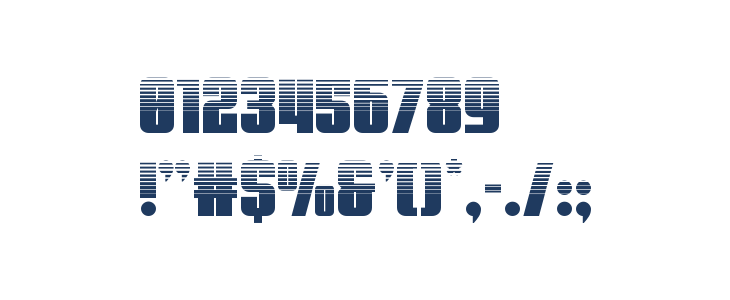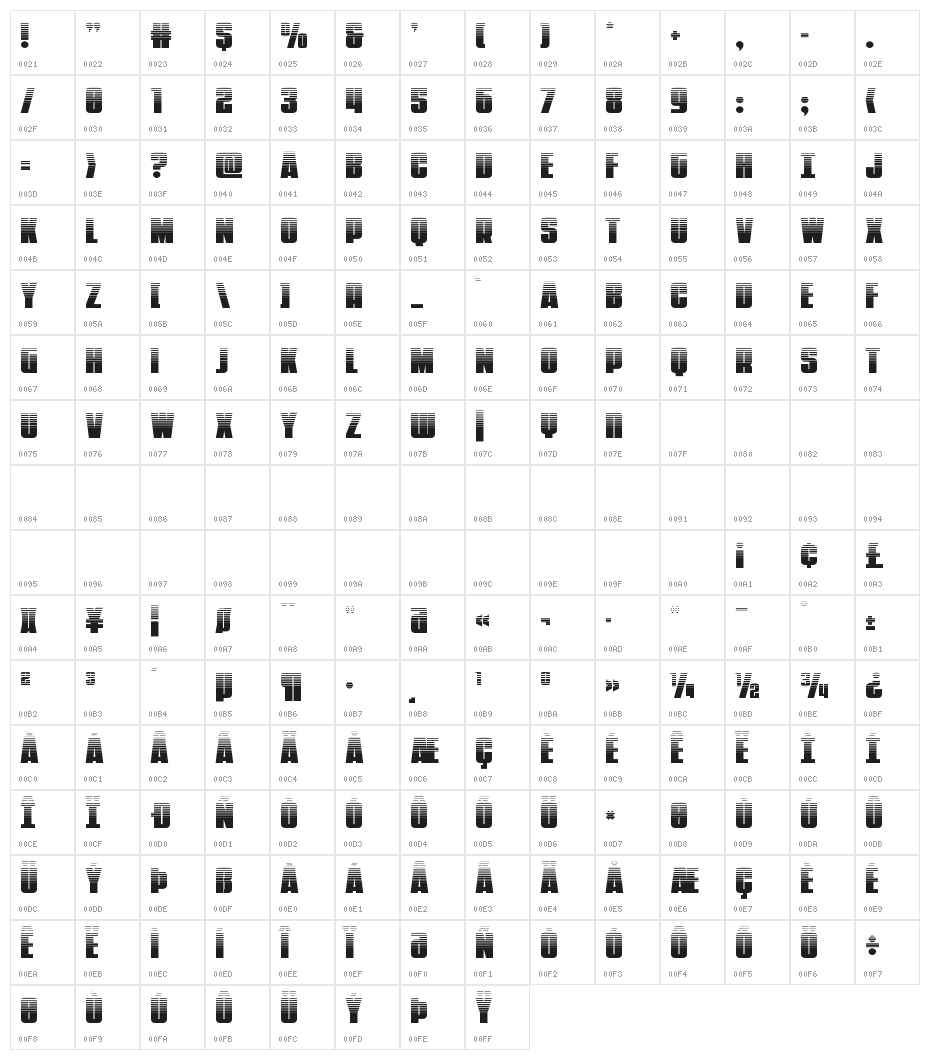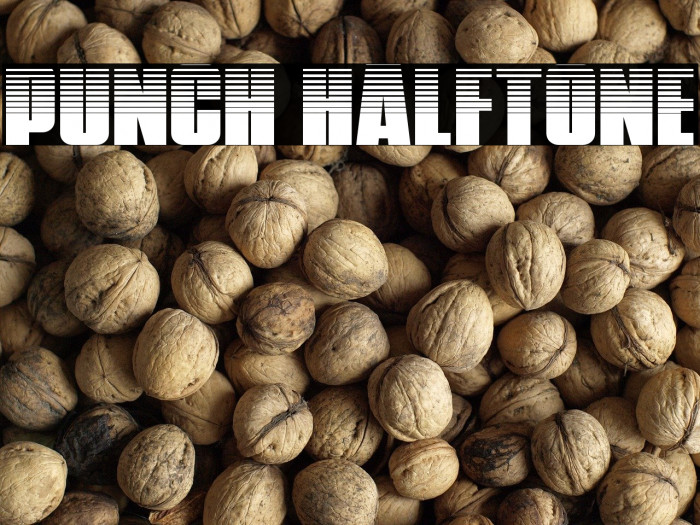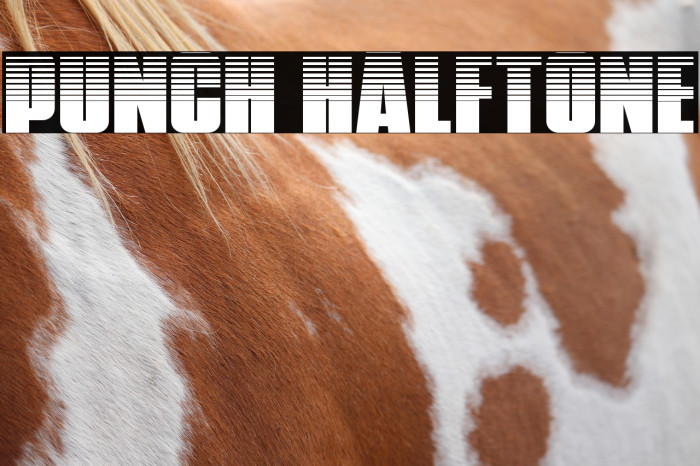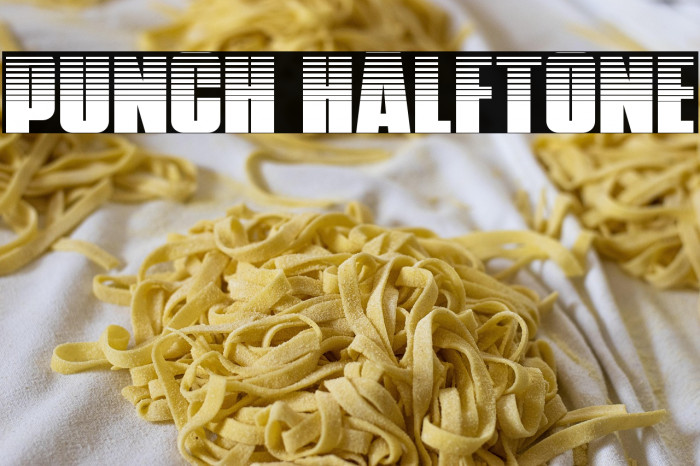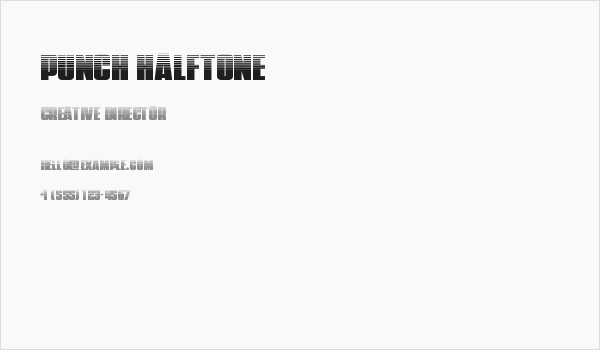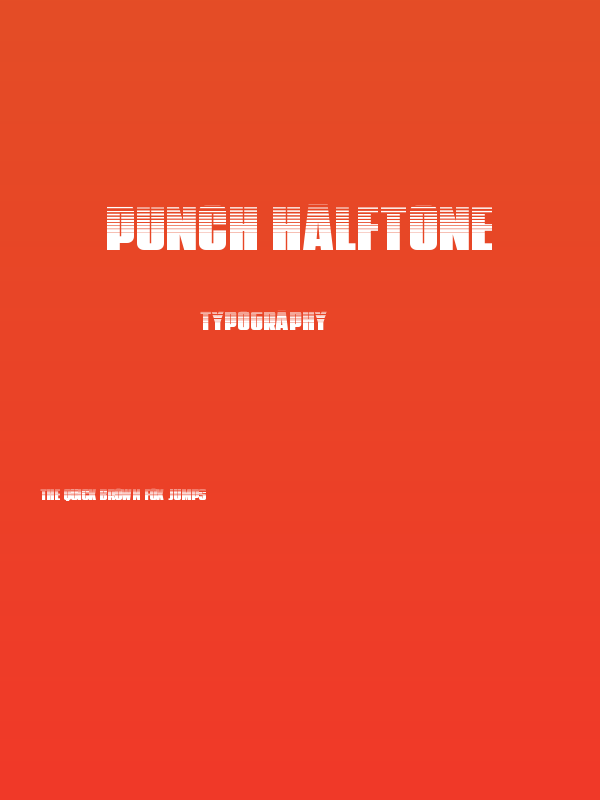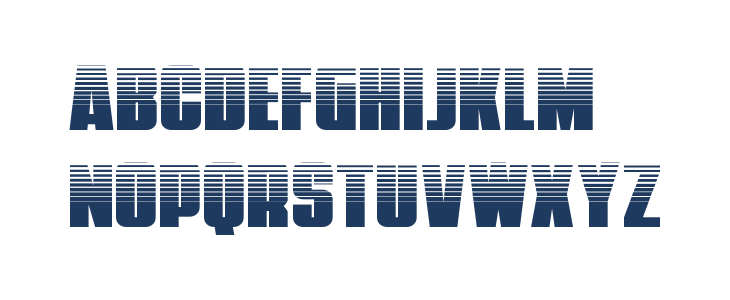
Punch Halftone Font
Punch Halftone Description
This font features a bold, striking design with a halftone effect that gives it a unique, textured appearance. The uppercase letters are robust and wide, with a gradient-like pattern that transitions from solid black at the bottom to lighter tones at the top, creating a dynamic visual impact. The lowercase letters maintain this bold style, ensuring consistency across the typeface. Numbers and special characters are designed with the same attention to detail, making them stand out with their distinctive halftone shading. This font is perfect for projects that require a strong, eye-catching display typeface.